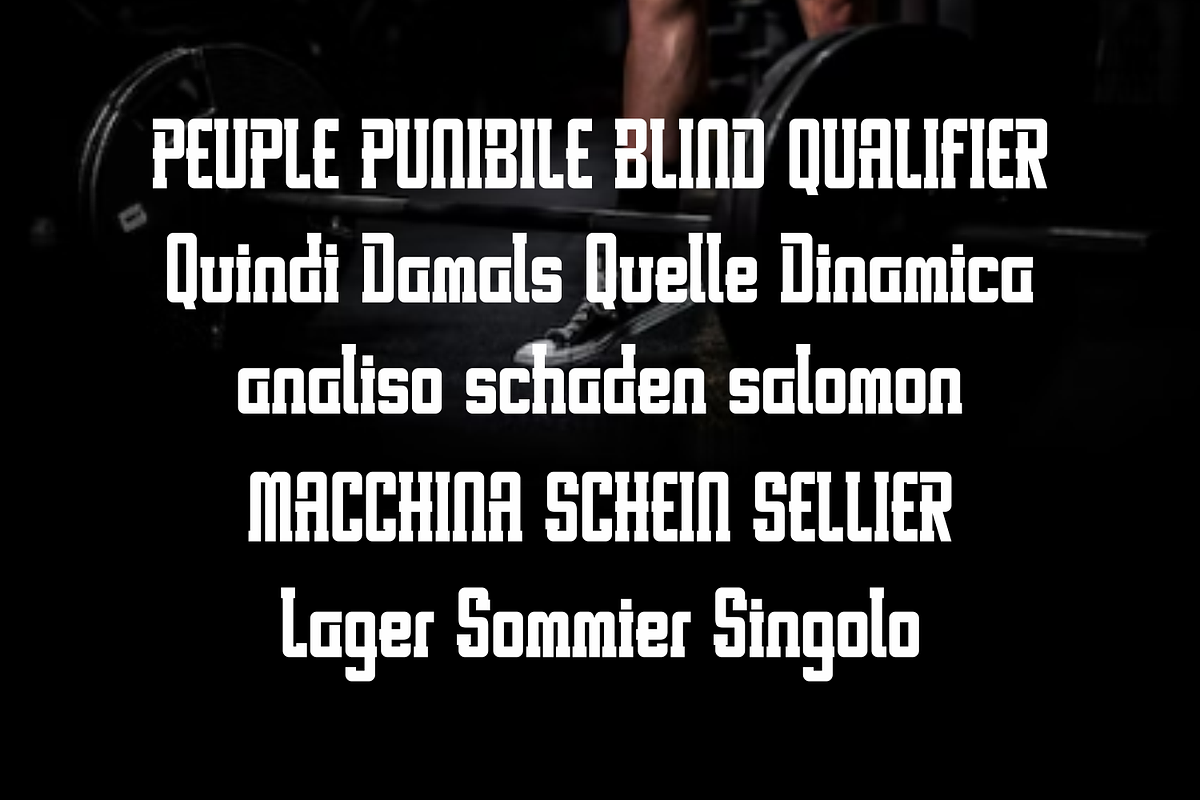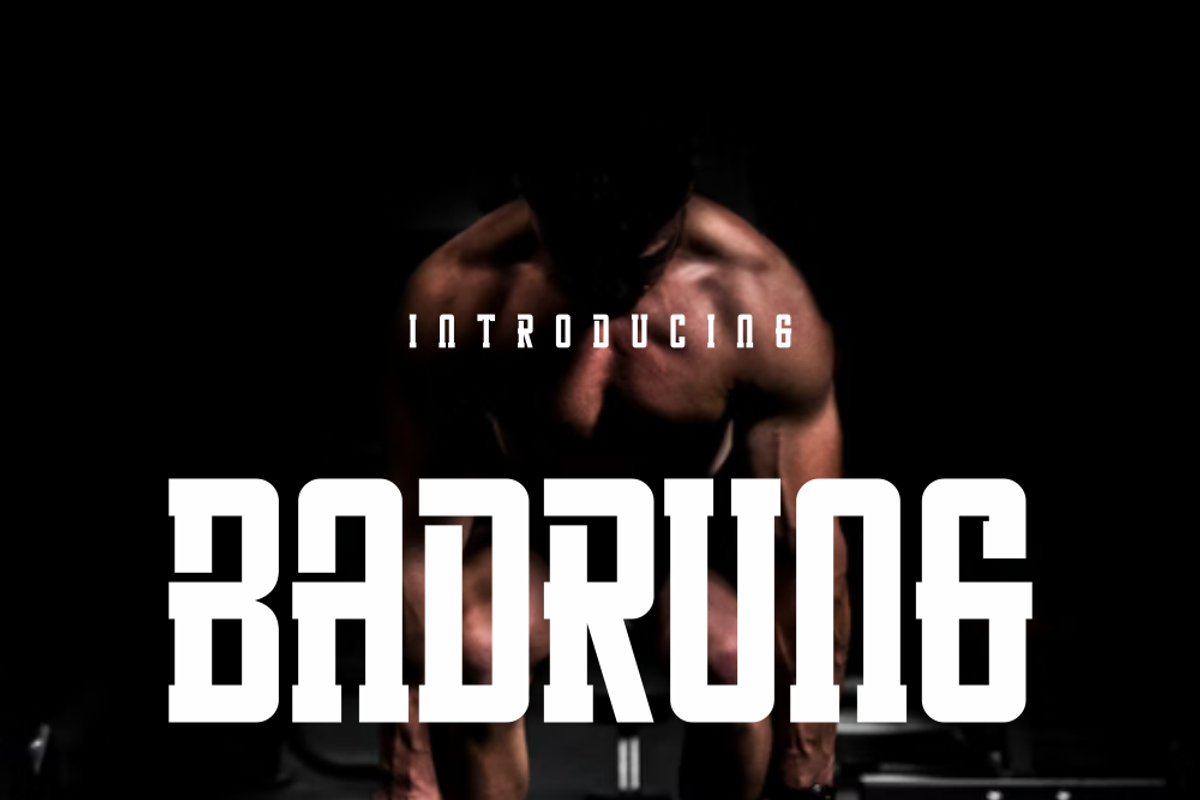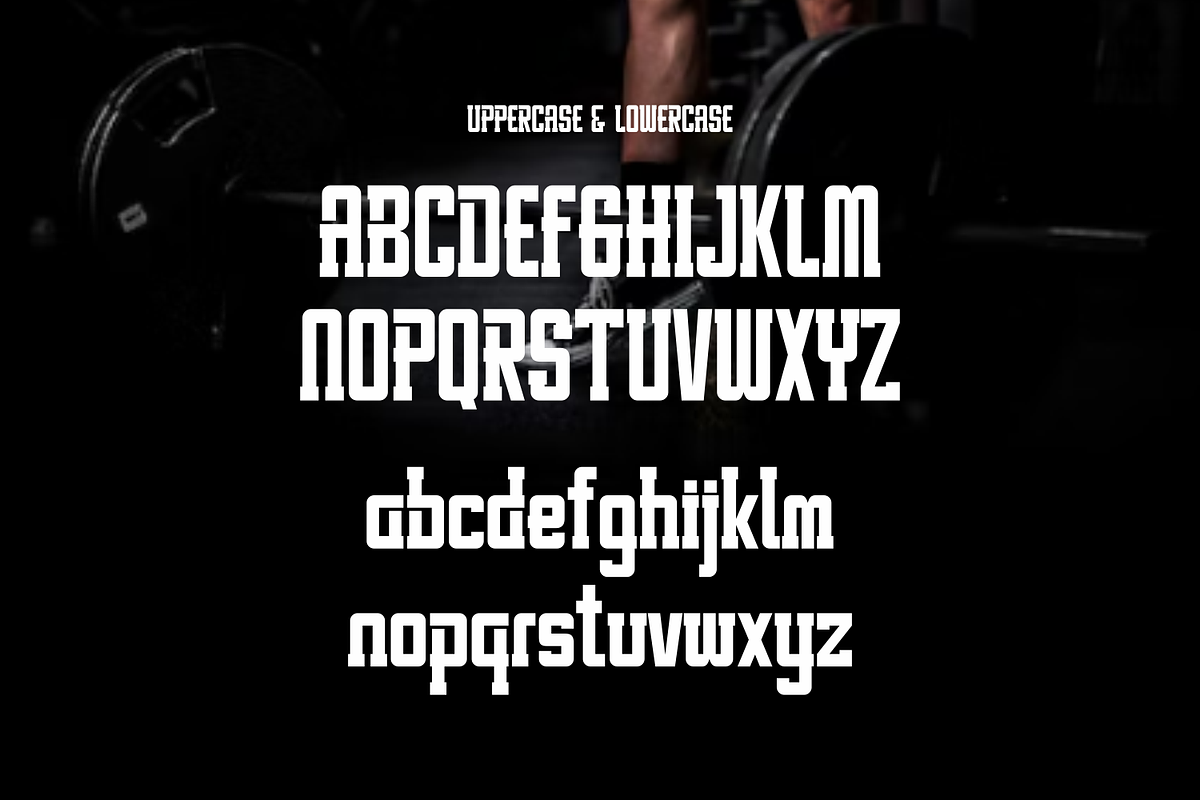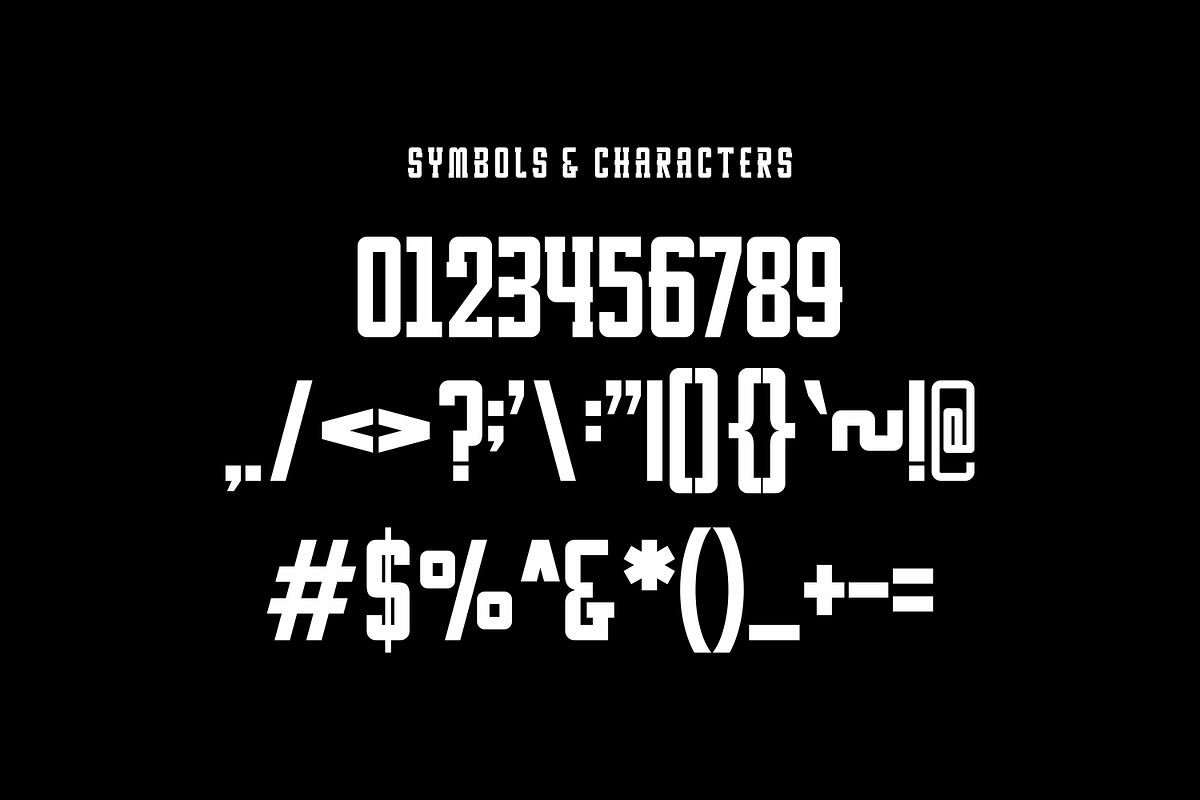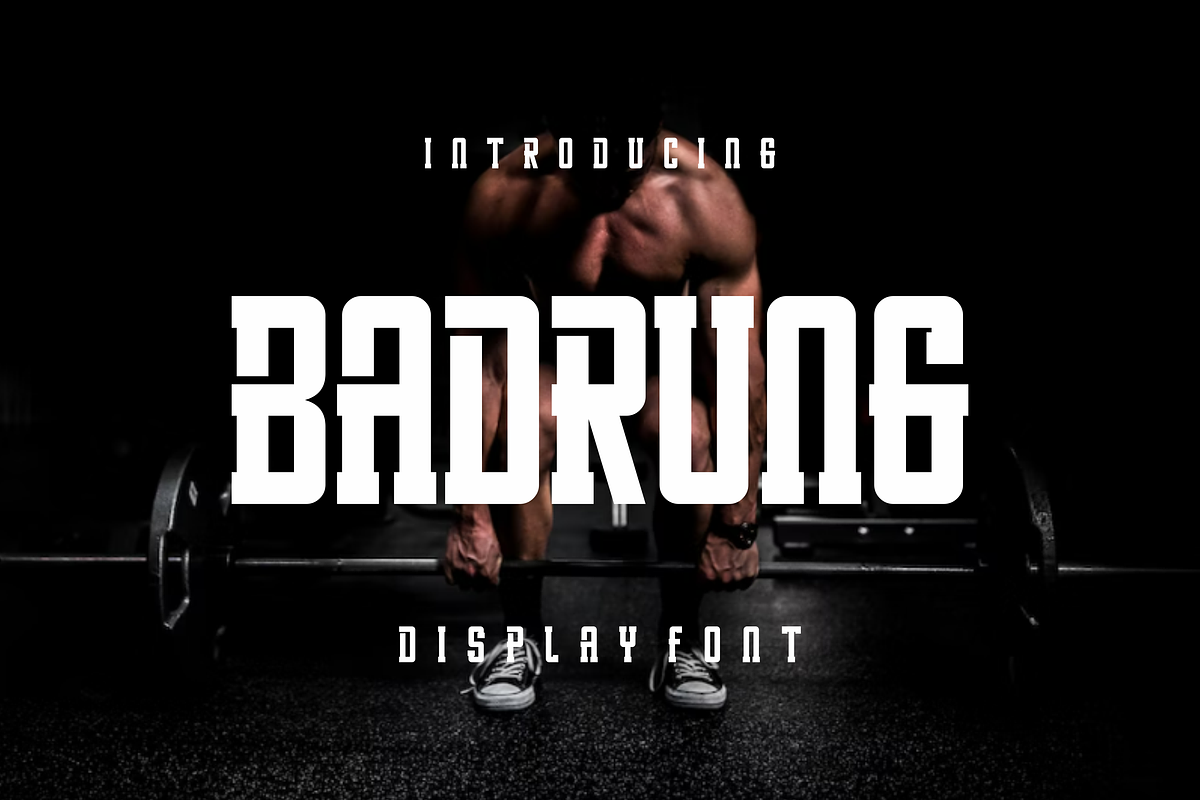
Badrung
Badrung Perfectly suited on print/screen. it’s perfect for Branding, name card, poster, logo, magazine, cover, banner, t-shirt and headers, or even large-scale artwork.